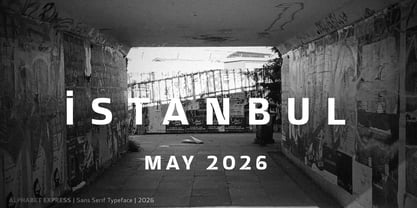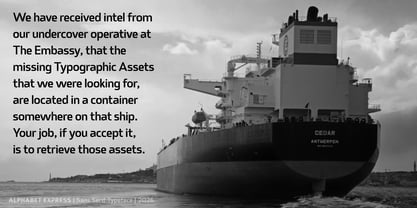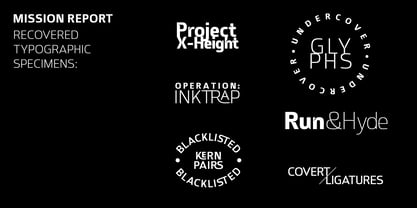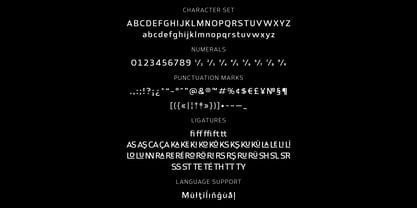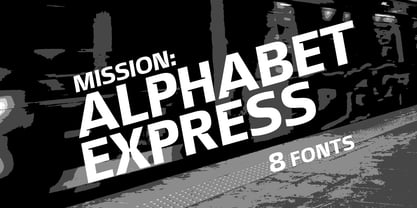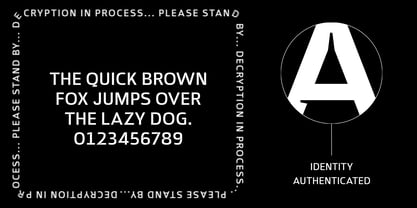
Alphabet Express
by Ayca Atalay
The Alphabet Express Font Family was designed by Ayça Atalay and published by Ayca Atalay. Alphabet Express contains 9 styles and family package options. More about this family
Alphabet Express Display Sans
Alphabet Express is a Sans Serif Family with multiple weights.
It has the clarity that inherently exists with strong sans serif typefaces, with the addition of a dynamic and daring flair.
Alphabet Express works perfectly in all sizes and contexts, but is exceptionally powerful in display sizes (headlines, titles, logos, etc.)
It has 40 Discretionary Ligatures that enable endless options to create attention grabbing headlines and titles.
Designers: Ayça Atalay
Foundry: Ayca Atalay
Alphabet Express
About Ayca Atalay
Ayça Atalay is an independent typeface designer based in Istanbul, Turkey. She released her first typeface Newcraft Serif in 2016. Dedicated to coming up with unique letterforms and impactful typefaces while simultaneously providing a wide range of Opentype features, Ayça Atalay creates all kinds of typefaces, from multi-weight families to hand drawn quirky serifs.